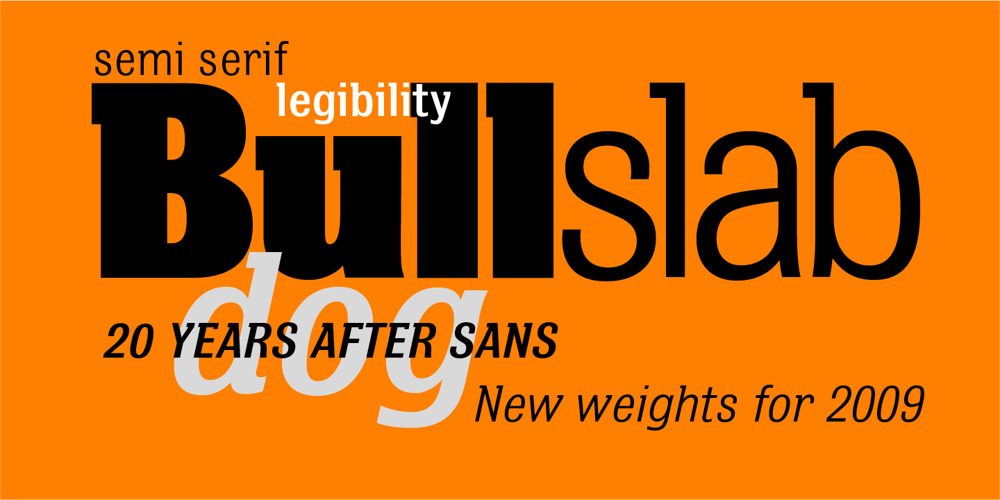
Bulldog Slab Font Family was designed by Adrian Williams and published by Club Type. Bulldog Slab contains 8 styles and family package options. Figgins and Caslon may be names familiar to many as Type Founders. Indeed they are, but they are perhaps less well known for the emergence of Sans Serif type styles which have become part of our lives since 1889. The first hundred years of this style is celebrated with this design by Adrian Williams, completed in 1989. It echoes many features of the Gothic, Grotesque and Sans Serif models of the period, based particularly on the 1870 Figgins.